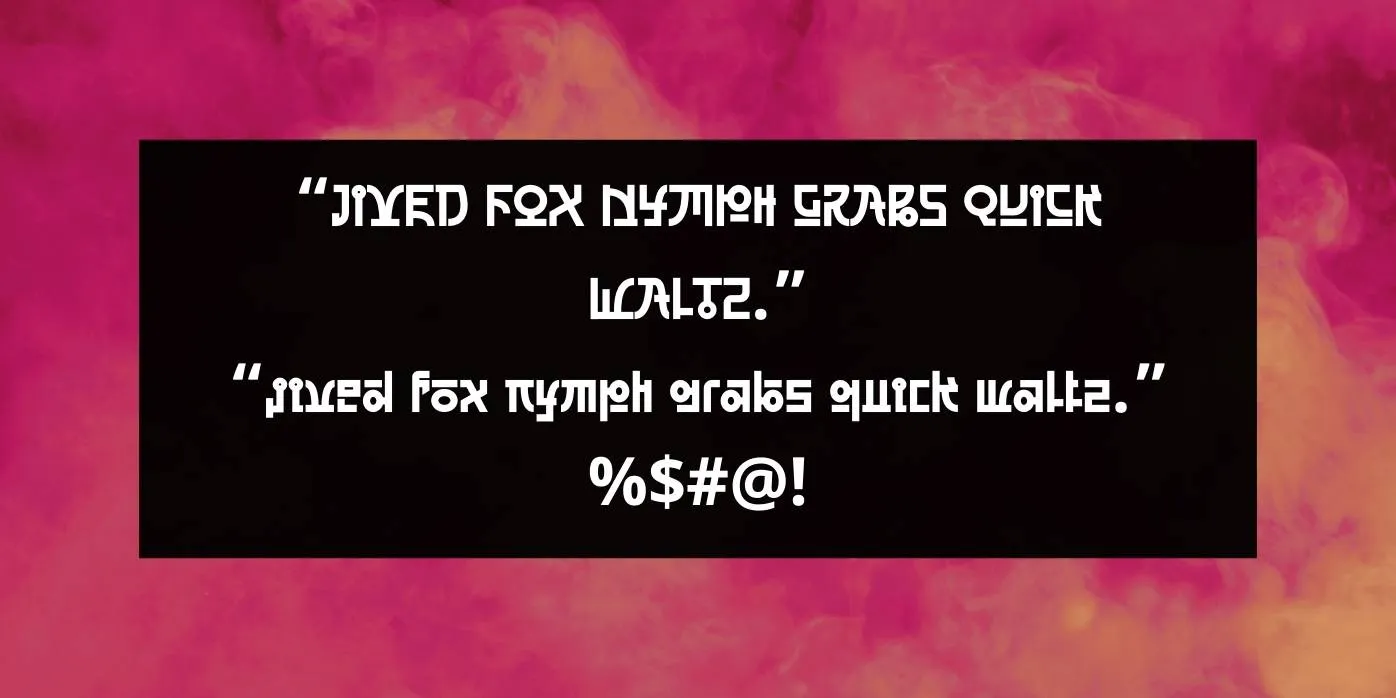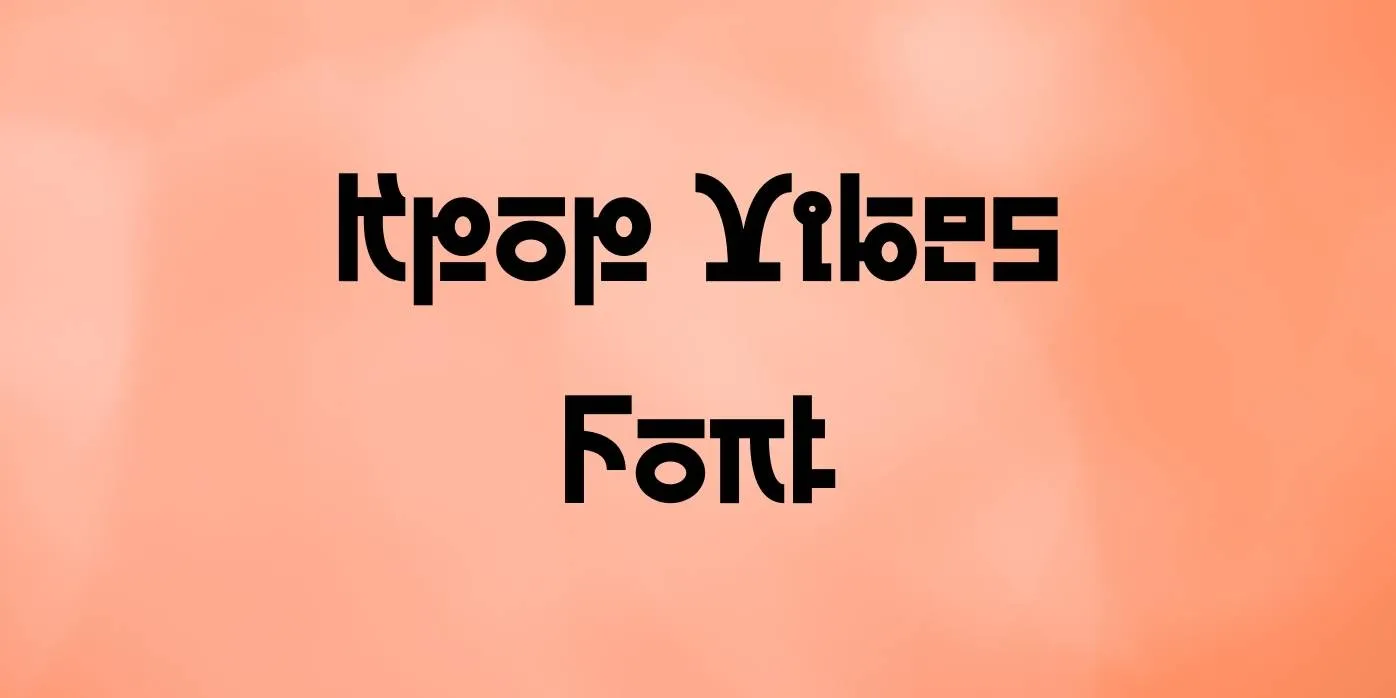
Kpop Vibes Font
Kpop Vibes Font is a unique fancy font that was created to help represent the Korean pop music industry. The font was created by a Korean company called “D&C Media” and it is widely used in Korea as well as other parts of Asia. The font is available in both TTF and OTF formats and can be downloaded for free from the D&C Media website. This Font is based on the Latin alphabet but includes some additional characters to represent the Korean language.